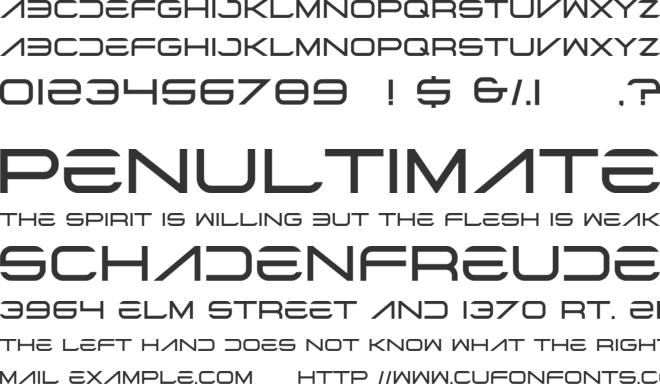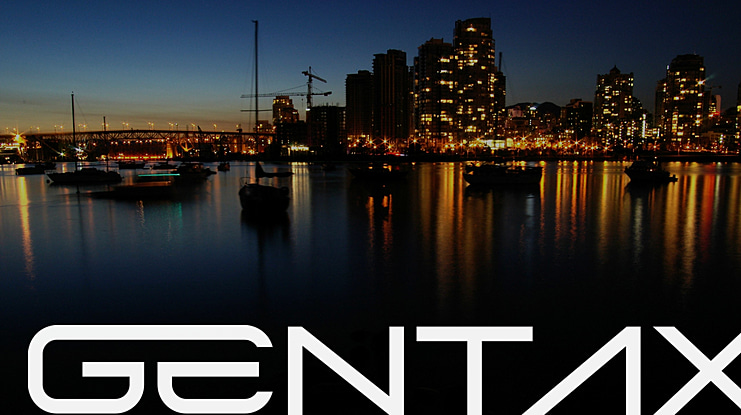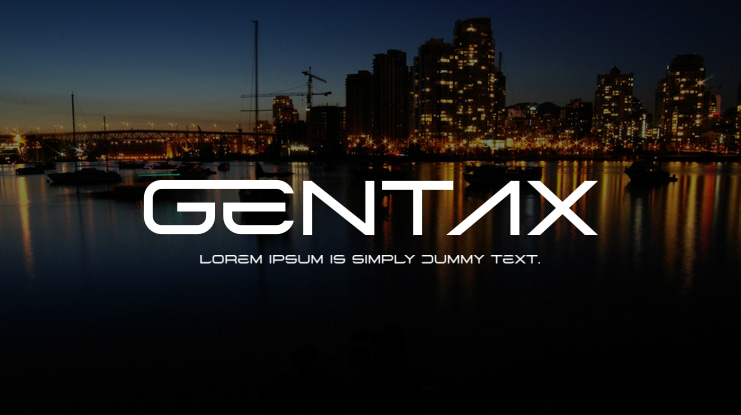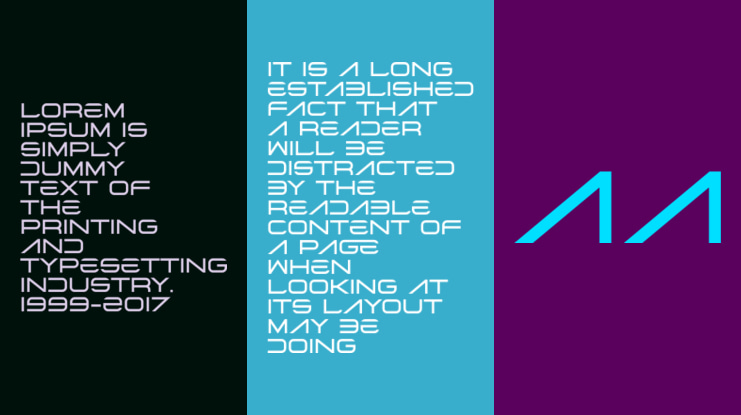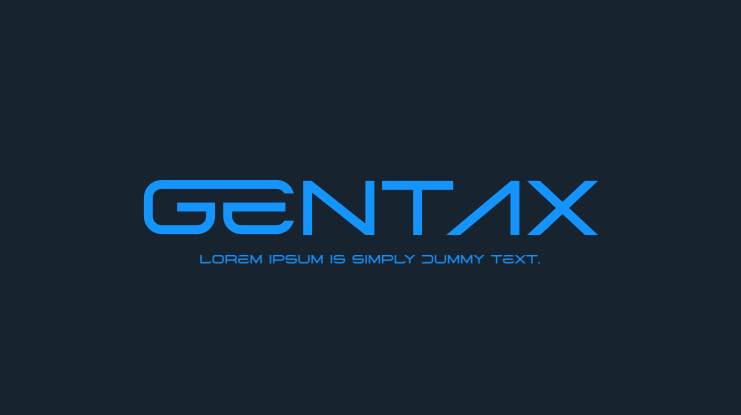
Gentax Font
It’s a scifi and sport game display font that has a unique style & modern look. Can make it easier to convey the message in your design and create a unique impression of bold and aesthetic looks.  This font is perfect for any branding project such as logos, t-shirt printing, creative products, and more. extraordinary in a variety of contexts.